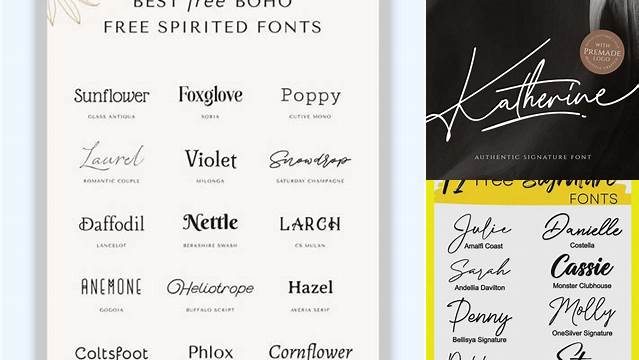
Free Signature Fonts: Elegant Typography For Your Designs
Are you looking to add a touch of sophistication and personality to your design projects? Free signature fonts are a fantastic way to achieve this! Signature fonts mimic the look of handwritten signatures, offering an elegant and personal feel that can instantly elevate your branding, social media graphics, website design, and more. In this article, we'll delve into the world of signature fonts, exploring their various styles, discussing where to find them for free, and providing tips on how to effectively use them in your designs.
What are Signature Fonts and Why Use Them?
Signature fonts are designed to emulate the fluidity and unique characteristics of a handwritten signature. They often feature flowing strokes, elegant curves, and a personalized aesthetic that can make your designs stand out. Unlike standard, more rigid fonts, signature fonts offer a human touch, conveying authenticity, creativity, and a sense of exclusivity. Think about it: when you see a handwritten note or signature, it feels more personal and engaging, right? Signature fonts aim to capture that same feeling in a digital format.
There are several reasons why you might choose to use a signature font in your projects. Firstly, they can instantly add a touch of elegance and sophistication. This is particularly useful if you're working on projects that require a premium feel, such as luxury branding, wedding invitations, or high-end marketing materials. Secondly, signature fonts can help you establish a unique brand identity. By using a signature font, you can create a distinctive visual style that sets you apart from your competitors and makes your brand more memorable. Thirdly, signature fonts can add a personal touch. This is especially important if you want to connect with your audience on an emotional level. A signature font can make your designs feel more authentic and relatable, which can help build trust and loyalty.
Using signature fonts isn't just about aesthetics; it's about communicating a message. Depending on the font you choose, you can convey different emotions and personalities. A bold and dramatic signature font might be perfect for a fashion brand, while a more delicate and flowing font could be ideal for a wedding planner. Furthermore, the versatility of signature fonts makes them suitable for a wide range of applications, from website headers and logos to social media posts and print materials. Whether you're a designer, entrepreneur, or simply someone who enjoys creating, signature fonts are an invaluable tool for making your work look polished and professional. So, whether you're creating a logo, designing social media graphics, or working on a website, signature fonts can add that special something that sets your design apart.
Finding Free Signature Fonts: A Treasure Trove of Options
When searching for free signature fonts, pay attention to the licensing terms. While most of the fonts on these websites are free for personal use, some may require a license for commercial projects. Make sure you understand the terms of use before downloading and using any font, especially if you plan to use it for your business or client work. Reading the fine print can save you from potential legal issues later. Also, always consider the font's quality and readability. Ensure that it looks good in different sizes and on various backgrounds. Some free fonts might have limited characters or include stylistic inconsistencies. Before committing to a font, experiment with it and test it out to ensure it fits your design needs.
Choosing the Right Signature Font: Tips and Considerations
Choosing the right signature font can significantly impact the overall look and feel of your design. Here are some key tips and considerations to help you make the best choice:
- Consider Your Brand: The font you choose should align with your brand's personality and values. If your brand is modern and minimalist, you might opt for a clean, elegant signature font. If your brand is more playful and informal, a more casual and flowing font might be a better fit. Matching the font with your brand identity is super important, so think about what message you want to convey.
- Readability: While signature fonts are known for their unique style, it's essential to ensure they are readable, especially in smaller sizes. Test the font in different sizes and on various backgrounds to ensure it's easy to read. If the font is too intricate or complex, it might be difficult to read, defeating the purpose.
Conclusion: Elevate Your Designs with the Magic of Signature Fonts
Free signature fonts offer a fantastic opportunity to add a unique and personal touch to your design projects. By understanding the different styles, exploring free resources, and following the tips outlined in this article, you can harness the power of signature fonts to elevate your branding, create eye-catching graphics, and connect with your audience on a deeper level. From elegant logos and website headers to engaging social media posts and print materials, signature fonts are an invaluable tool for any designer. So, go out there, experiment with different fonts, and let your creativity flow! Embrace the beauty of handwritten styles and make your designs stand out from the crowd.